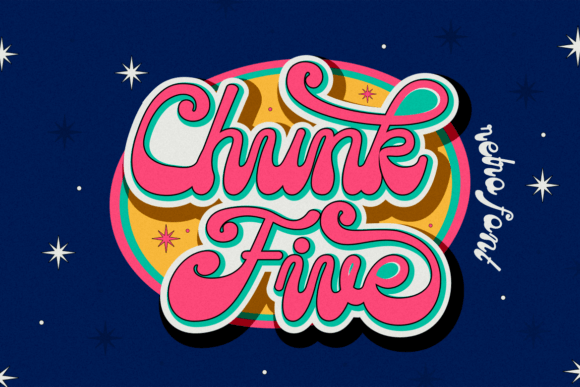
Chunk Five Font: A Retro Script Font to Transport You Back in Time
In the world of typography, fonts play a crucial role in conveying the tone and personality of a design. For those seeking a retro or vintage theme, Chunk Five – Retro Script Font is an excellent choice. This captivating display script typeface effortlessly transports you back to the retro and vintage eras, making it perfect for a wide range of design projects.
What is Chunk Five Font?
Chunk Five – Retro Script Font is a bold and groovy display script typeface that features bottom-heavy characters, making a strong impact on any design. Its distinctive feature lies in its unique shape and style, which is reminiscent of the retro and vintage eras. This font is perfect for designers seeking to add a touch of nostalgia and charm to their creative projects.
Key Features of Chunk Five Font
Chunk Five – Retro Script Font offers an extensive set of features that make it an excellent choice for designers. Some of its key features include:
- Bold and Groovy Characters: The font features bold and groovy bottom-heavy characters that make a strong impact on any design.
- Extensive Set of Alternative Characters: Chunk Five offers an extensive set of alternative characters, allowing designers to choose from a wide range of unique shapes and swashes.
- Retro and Vintage Style: The font’s retro and vintage style brings a touch of the past into your designs, making it perfect for conveying a sense of history and personality.
Use Cases for Chunk Five Font
Chunk Five – Retro Script Font is ideal for a wide range of design projects, including:
- Logos: The font’s bold and groovy characters make it perfect for logos that require a strong impact.
- Packaging: Chunk Five’s retro and vintage style makes it an excellent choice for packaging designs that require a touch of nostalgia.
- Invitations and Greeting Cards: The font’s unique shape and style make it perfect for invitations and greeting cards that require a personal touch.
- Posters and Magazines: Chunk Five’s bold and groovy characters make it an excellent choice for posters and magazines that require a strong visual impact.
- Business Branding: The font’s retro and vintage style makes it perfect for business branding projects that require a sense of history and personality.
Benefits of Using Chunk Five Font
Using Chunk Five – Retro Script Font offers several benefits, including:
- Unique and Creative Designs: The font’s extensive set of alternative characters and unique shape and style allow designers to create unique and creative designs.
- Time-Saving: Chunk Five’s extensive set of features and use cases make it a time-saving solution for designers.
- High-Quality Designs: The font’s bold and groovy characters and retro and vintage style ensure high-quality designs that convey a sense of history and personality.
- Choose the Right Characters: Choose the right characters and swashes from the font’s extensive set of alternative characters.
In conclusion, Chunk Five – Retro Script Font is a captivating display script typeface that effortlessly transports you back to the retro and vintage eras. Its distinctive feature lies in its bold and groovy bottom-heavy characters that make a strong impact on any design. With its extensive set of alternative characters and retro and vintage style, Chunk Five is perfect for a wide range of design projects, including logos, packaging, invitations, greeting cards, posters, magazines, titles, business branding, and all projects seeking a retro or vintage theme.
Here are some frequently asked questions about Chunk Five – Retro Script Font:
- What is Chunk Five font?
- Chunk Five – Retro Script Font is a bold and groovy display script typeface that features bottom-heavy characters.
- What are the key features of Chunk Five font?
- The font’s key features include bold and groovy characters, an extensive set of alternative characters, and a retro and vintage style.
- What are the use cases for Chunk Five font?
- The font is ideal for logos, packaging, invitations, greeting cards, posters, magazines, titles, business branding, and all projects seeking a retro or vintage theme.